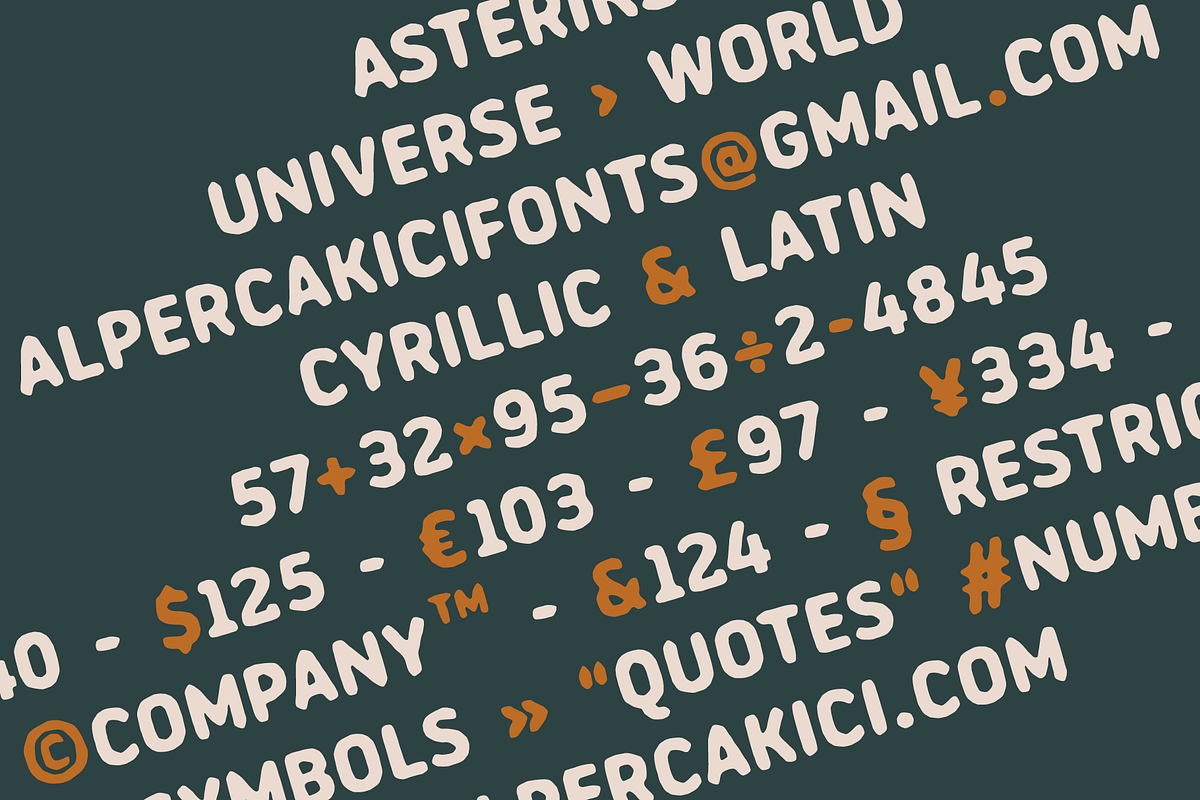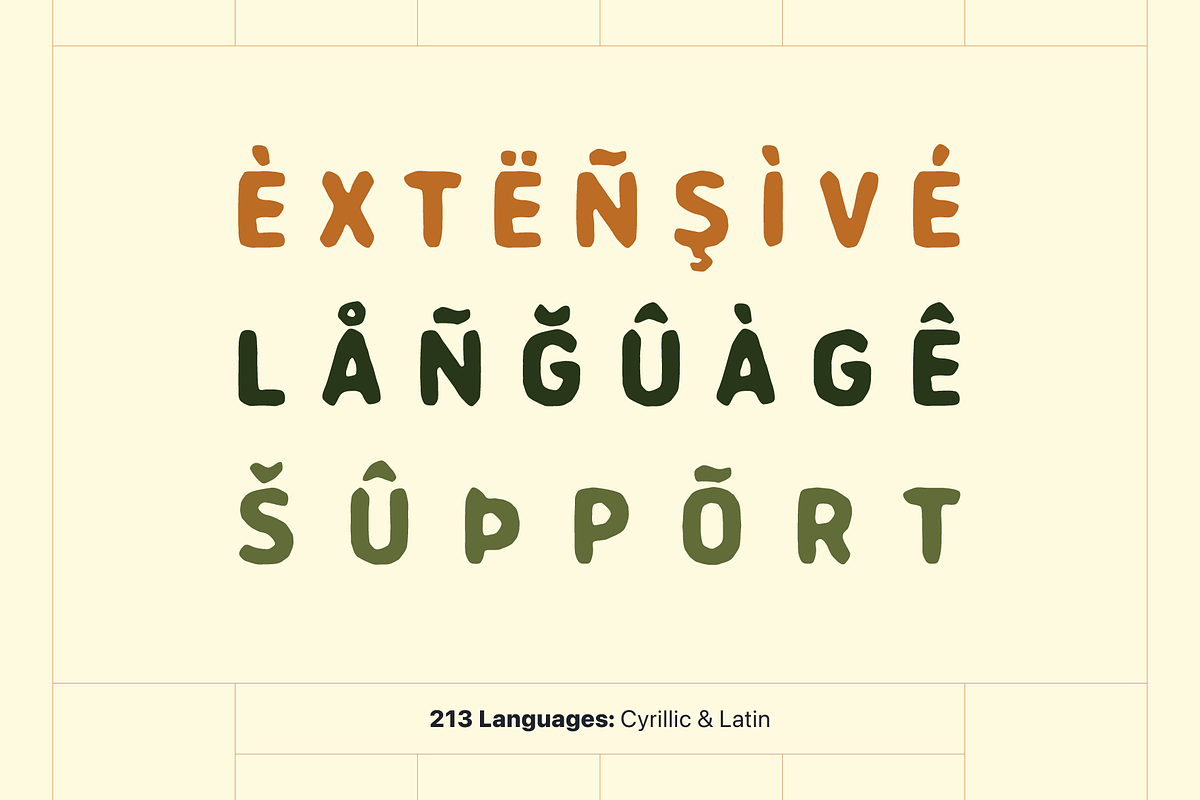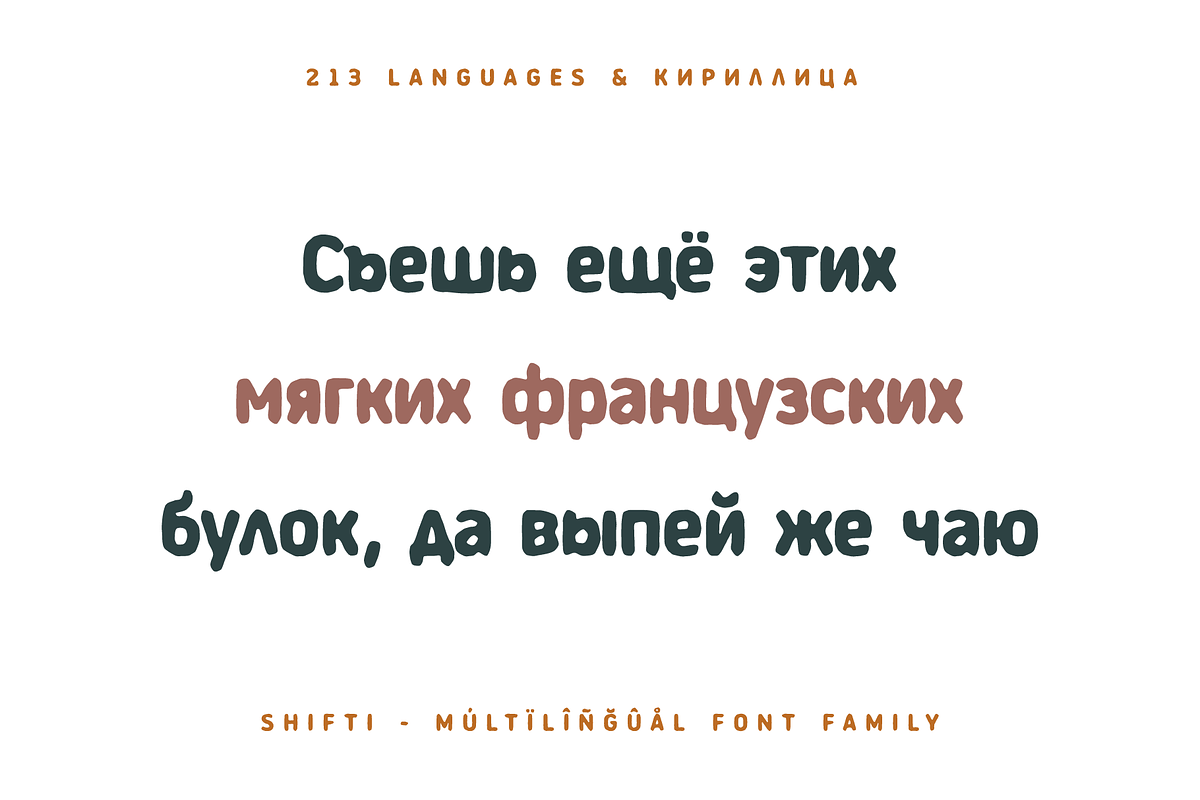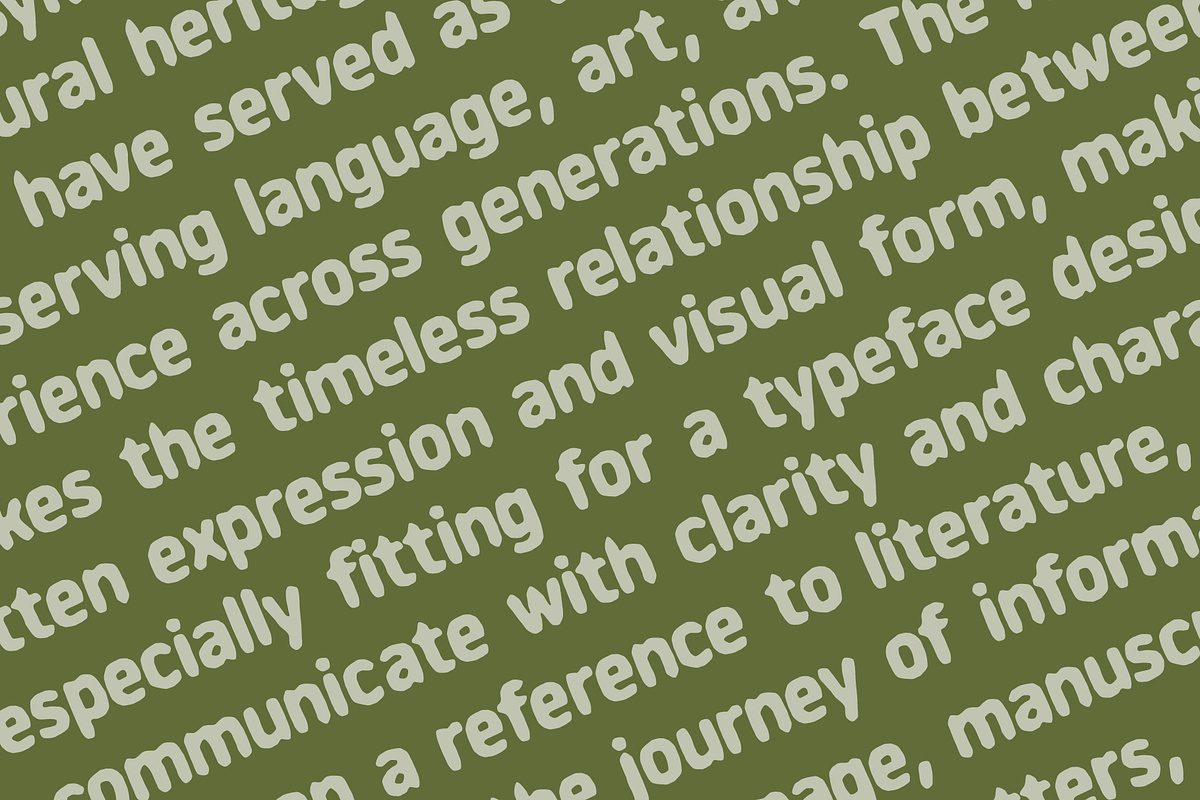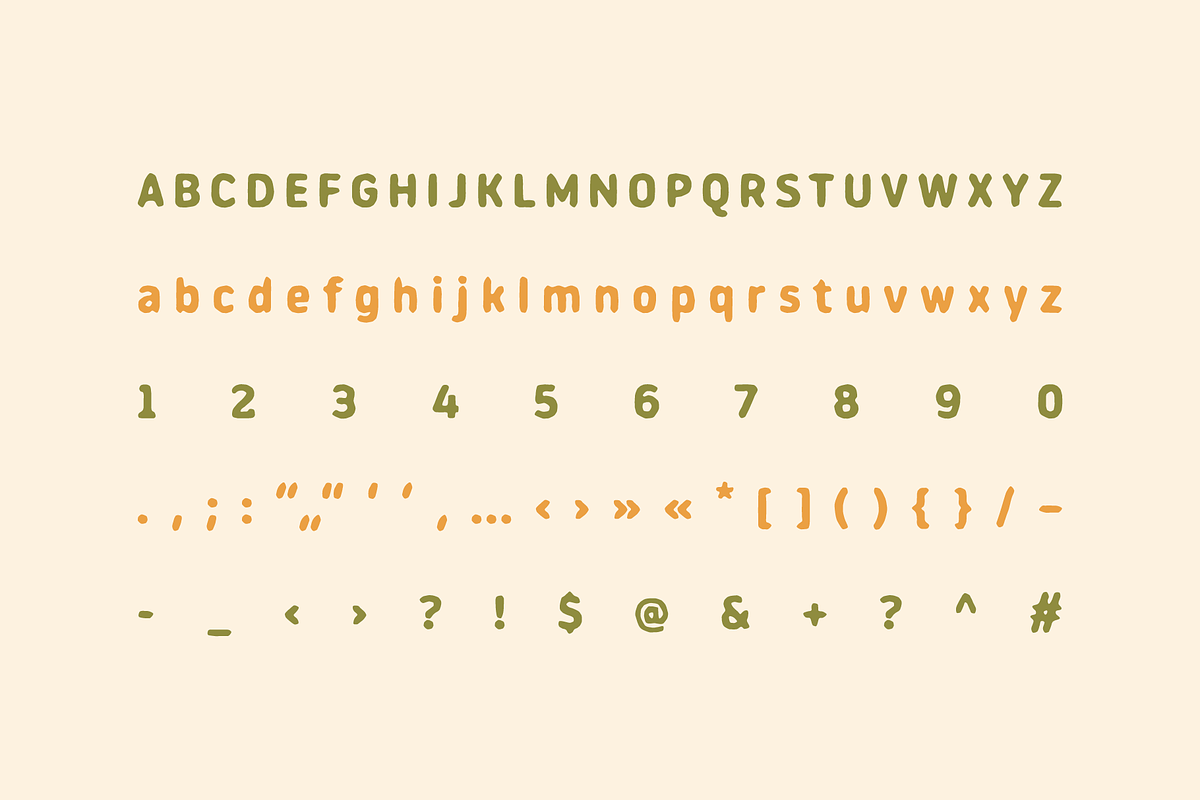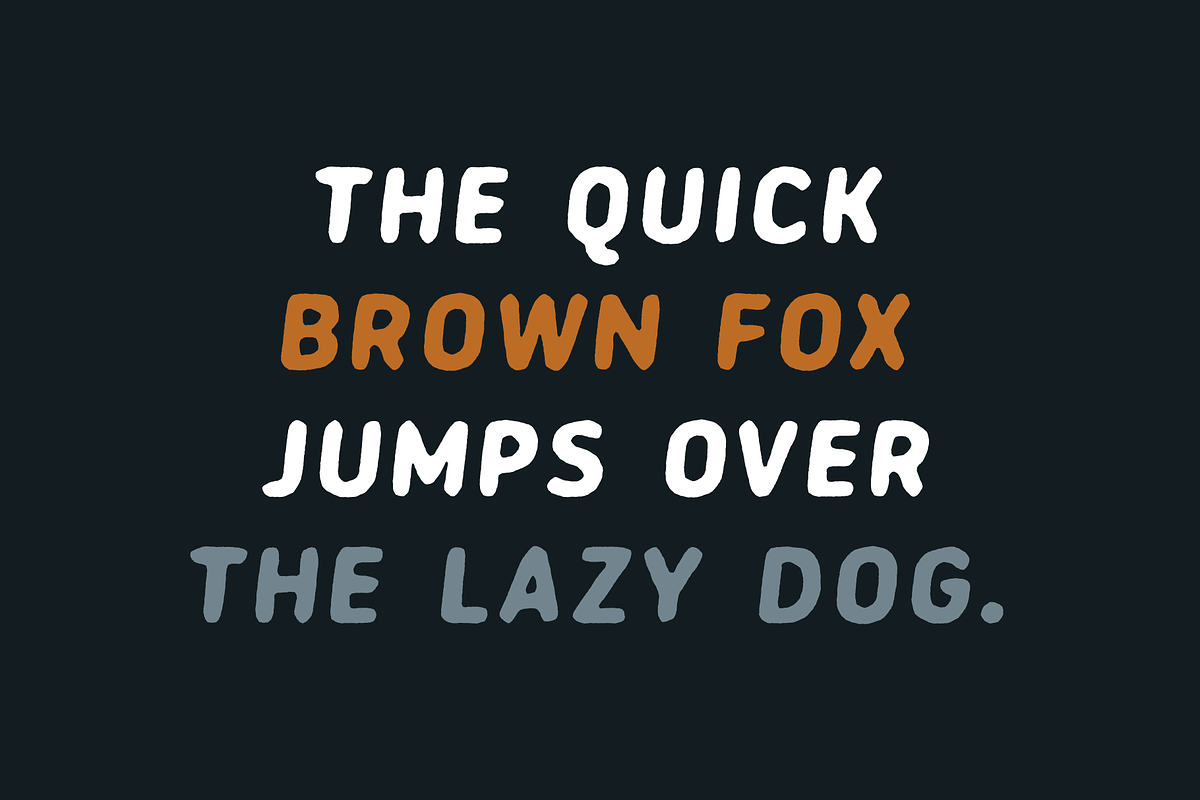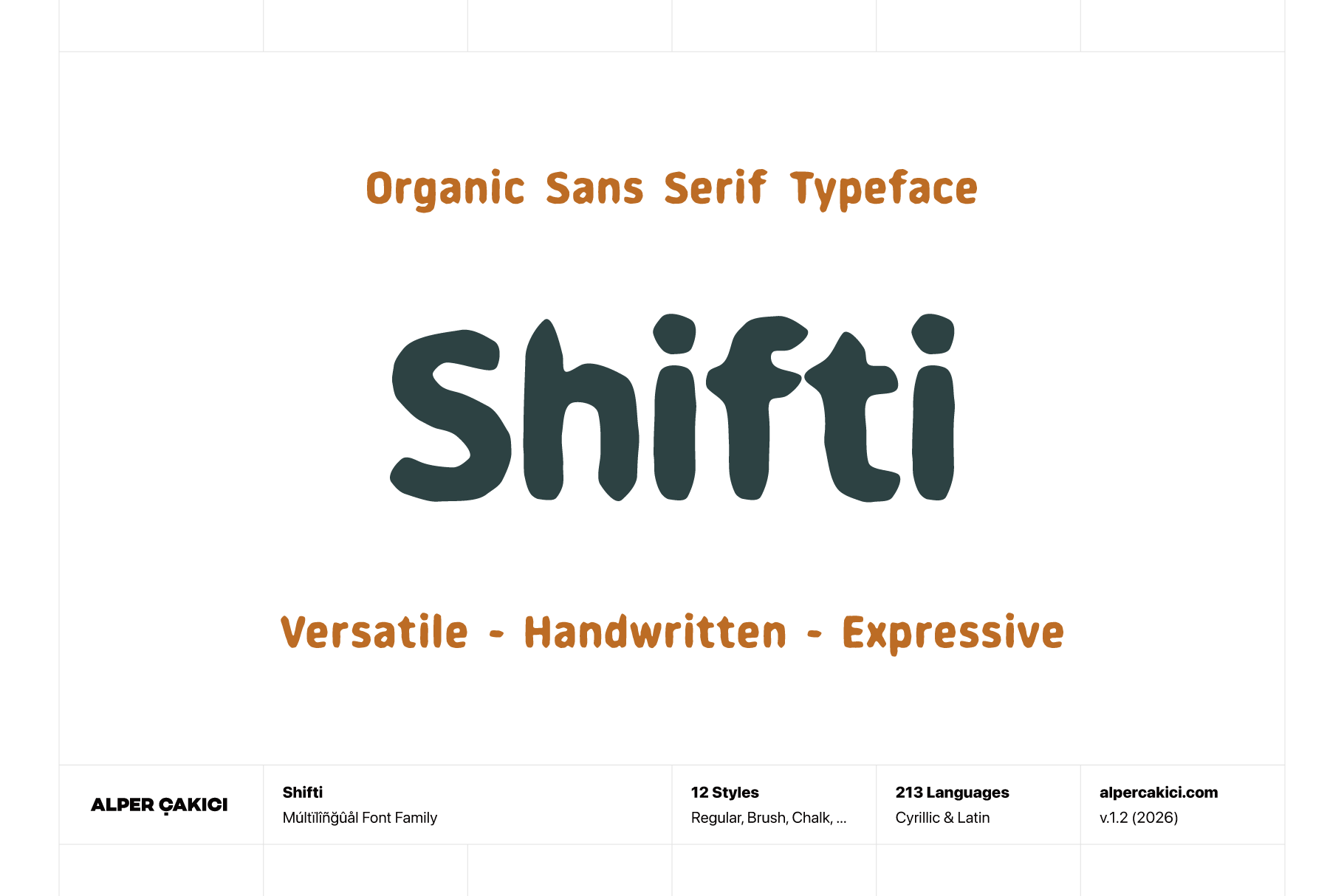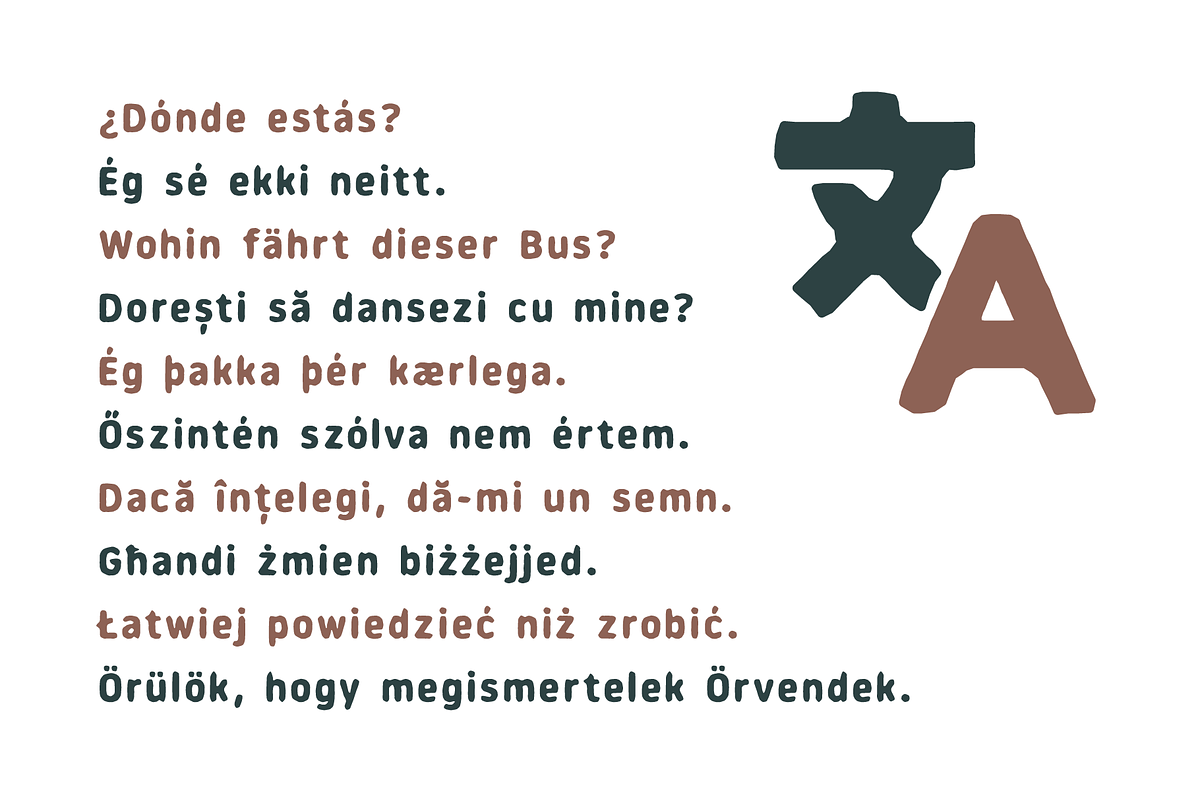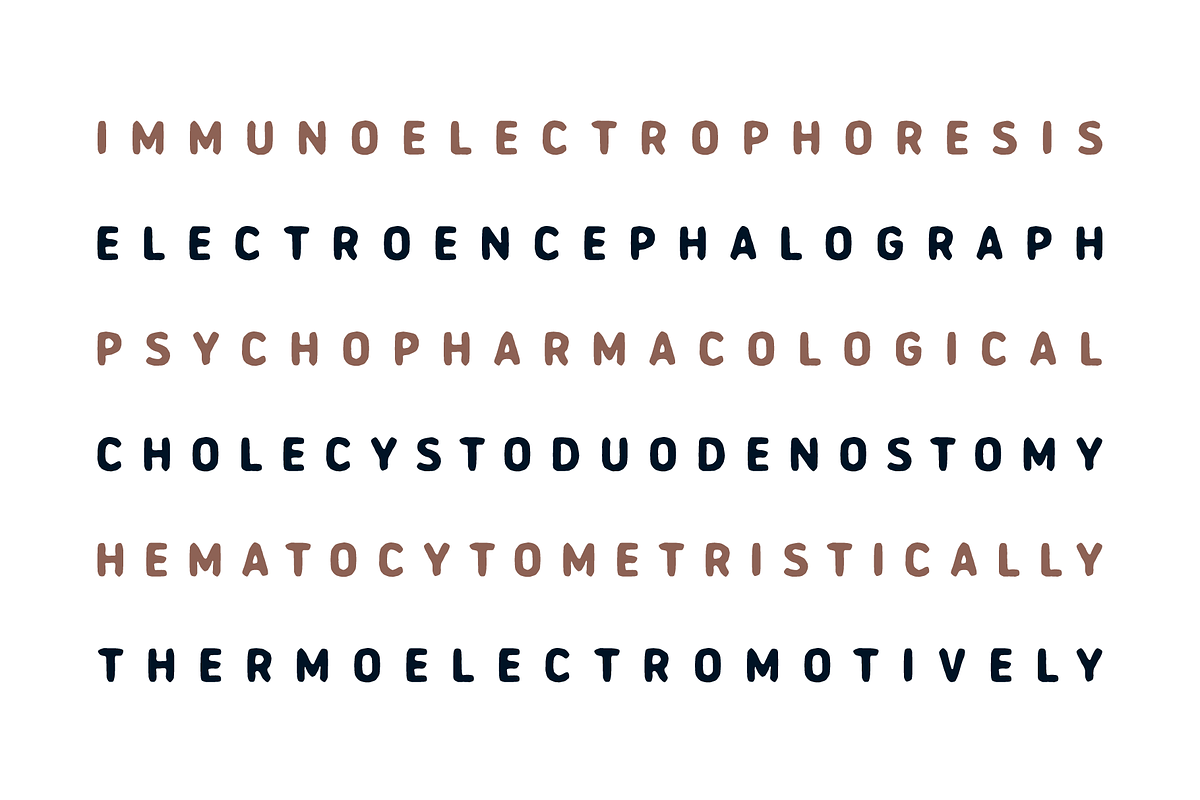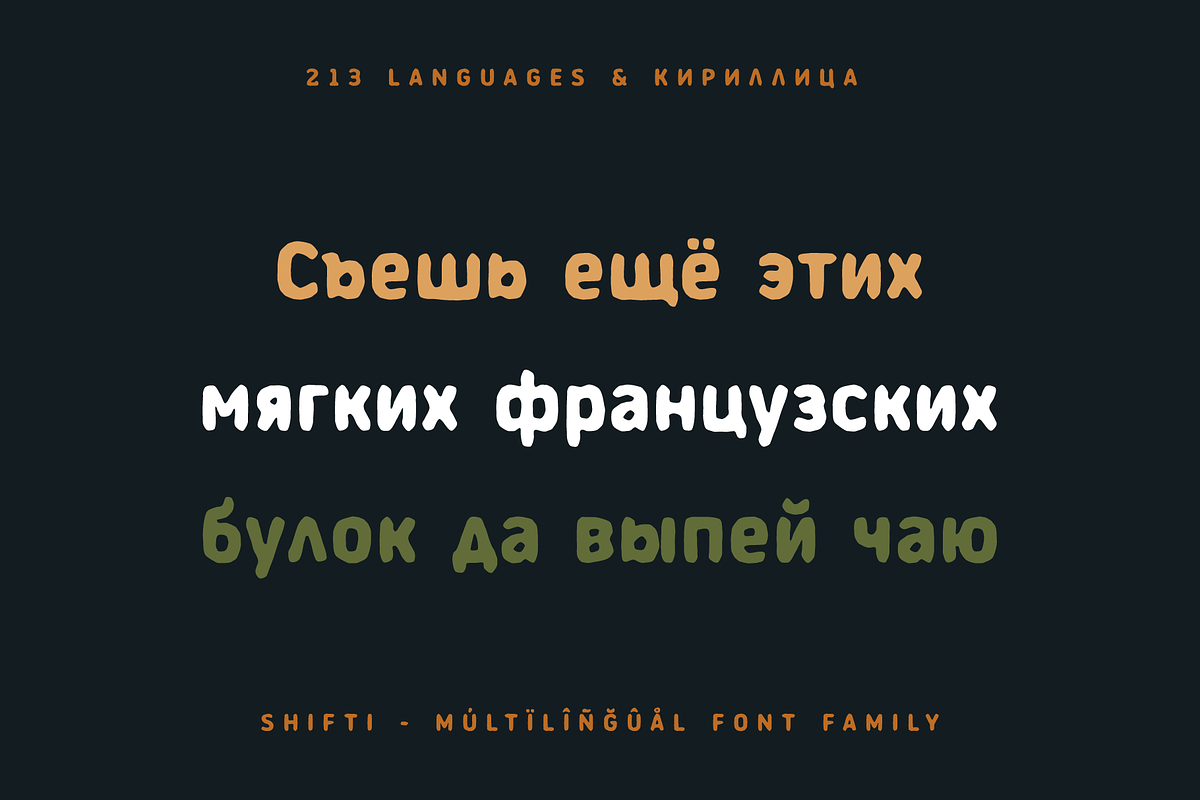
Shifti - Organic Display Typeface
Shifti is an expressive organic display typeface built around the visual character of melted, flowing, and liquid-like letterforms. Its handmade construction gives every character an intentionally tactile personality, while its soft, irregular contours create a distinctive sense of movement and deformation.
The design sits between organic lettering, handmade typography, melted forms, and liquid-inspired display type. Rather than following rigid geometric structures, Shifti allows its shapes to bend, swell, soften, and transform, producing a playful yet highly recognizable typographic texture. The result is a typeface that feels fluid, experimental, and slightly surreal without losing its ability to communicate clearly.
Shifti includes 12 styles, providing a versatile collection for both clean and distressed applications: Regular, Italic, Rough, Rough Italic, Aged, Aged Italic, Hazy, Hazy Italic, Outline, Outline Italic, Shadow, and Shadow Italic. This range makes it possible to move from a relatively clean organic appearance to rough, atmospheric, dimensional, and decorative treatments while maintaining the same underlying character.
The Regular and Italic styles provide the foundation of the family, with flowing forms that work particularly well for expressive headlines, branding, packaging, posters, editorial graphics, and contemporary display typography. The Rough and Aged styles introduce texture and imperfection, creating a more weathered, handmade, vintage, or experimental impression. Hazy adds a softer and more atmospheric quality, while Outline and Shadow offer additional possibilities for layered compositions, logos, signage, titles, and eye-catching graphic treatments.
With 535 glyphs and support for Cyrillic and Latin, Shifti is designed for a broad range of multilingual creative projects. Its OpenType features include localized forms, fractions, superior and inferior figures, ordinal forms, and other typographic substitutions, helping the family remain practical as well as visually distinctive.
Shifti is especially suited to projects that need typography with personality rather than conventional neutrality. It can bring an unusual visual voice to logos, posters, album artwork, book covers, packaging, apparel graphics, advertising, social media artwork, stickers, labels, merchandise, headlines, titles, and experimental editorial design.
Designed for both digital and print applications, Shifti maintains its expressive character across screens and physical media. Its combination of fluid construction, handmade irregularity, and multiple textural styles makes it a flexible choice for designers looking for typography that feels melted, organic, playful, unconventional, and unmistakably handcrafted.
Shifti is not simply a distorted sans serif—it is a deliberately fluid typographic system where letters appear to soften, stretch, melt, and flow into their surroundings.